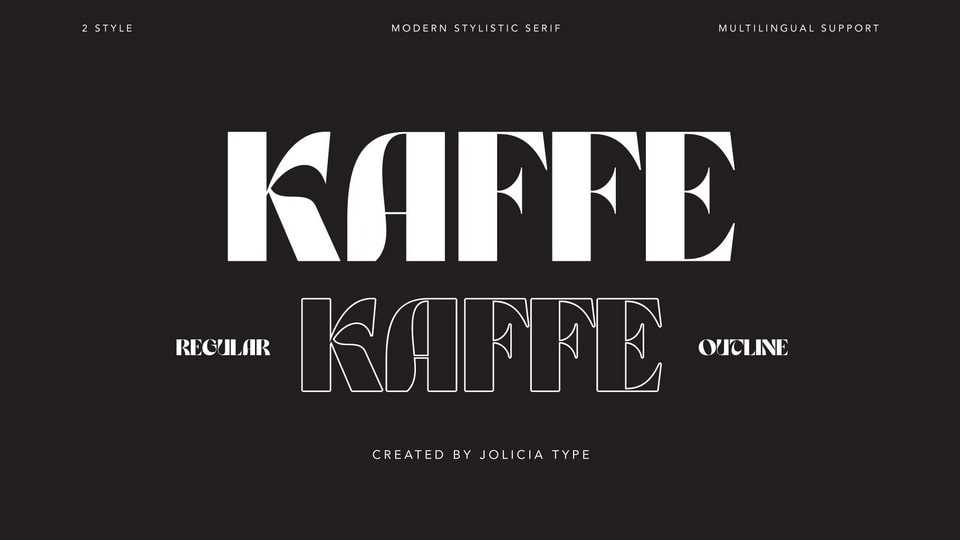
Download Kaffe font, a display typeface inspired by the retro and psychedelic lettering. With its bold style it looks very trendy and standout, easy to use for branding, logo, digital marketing, and any more.